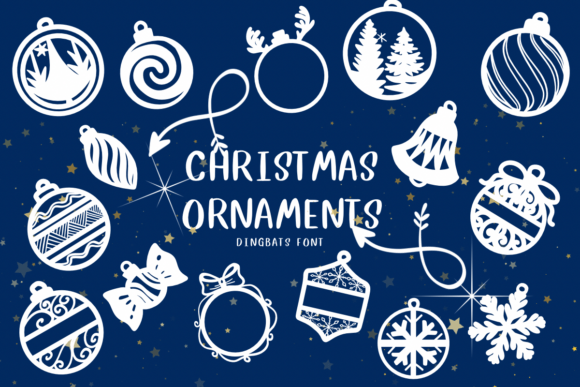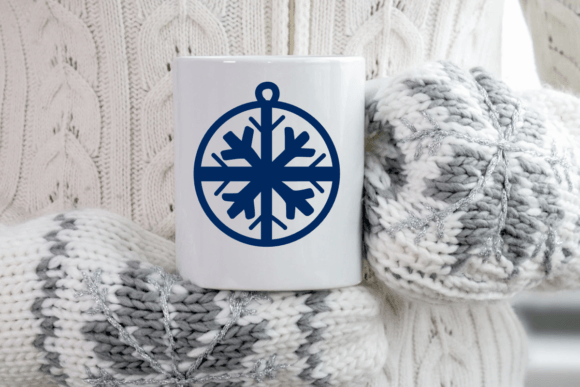
Christmas Ornaments Font
Christmas Ornaments Dingbat Font: This is a fun and festive font that features cute symbols of Christmas ornaments. Each letter shows a different ornament design, like baubles, stars, and snowflakes. Perfect for adding a joyful touch to holiday cards, decorations, and crafts!